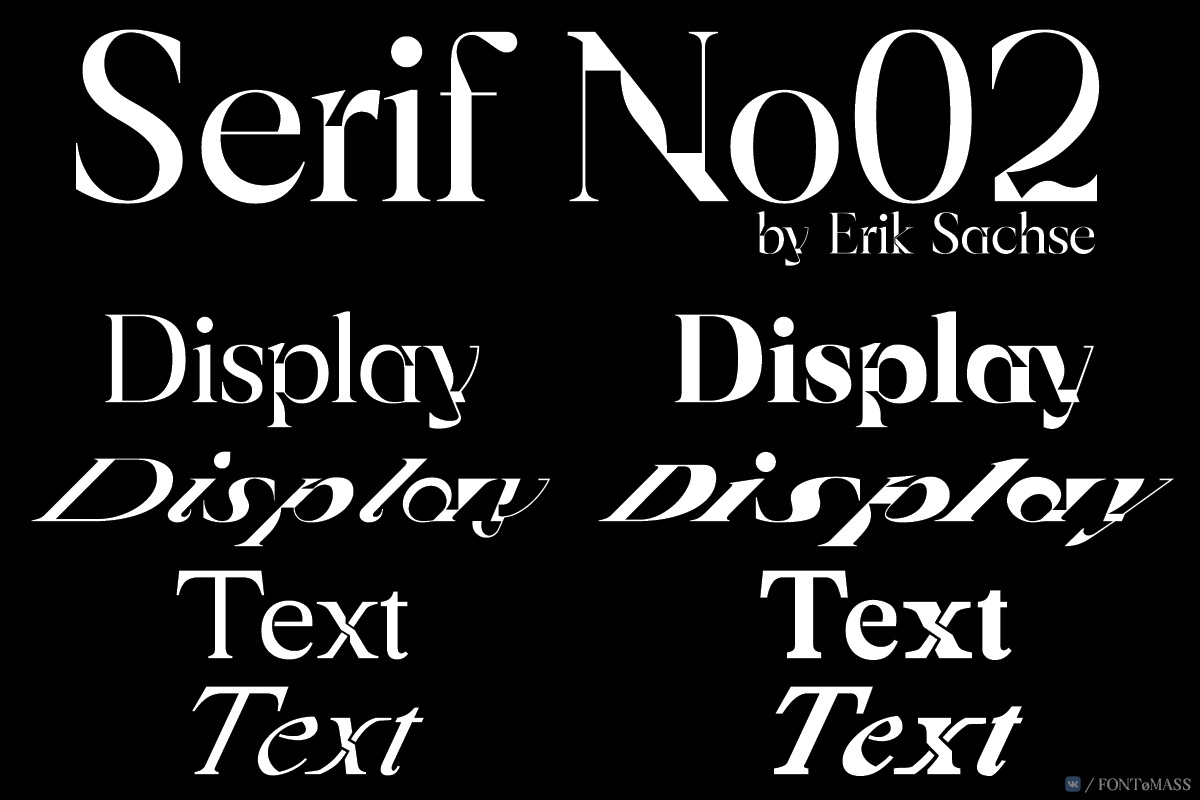
Serif No02 Font
Serif No02 Font is perfect for professional editorial layouts, traditional book publishing, academic documentation, corporate communications, legal firm identities, financial institution branding, formal stationery design, and authoritative advertising materials. This distinguished typeface works exceptionally well in both digital applications and print media where classical elegance and professional credibility are fundamental design requirements.
What makes Serif No02 Font so exciting is its refined interpretation of timeless serif tradition through carefully balanced letterforms that embody the perfect synthesis of classical typography and contemporary functionality. The font features elegant characters with traditional proportions, sophisticated serifs, and professional spacing that creates an atmosphere of established authority and intellectual credibility. Its distinguished personality and classical heritage make it ideal for brands seeking to communicate reliability, academic excellence, and professional competence while appealing to audiences who value traditional craftsmanship and scholarly precision.
The Serif No02 Font family includes comprehensive weight variations from light to bold, along with matching italic styles and traditional alternates. Each style maintains the typeface's classical character while offering extensive multilingual support, traditional numerals, scholarly punctuation marks, and special characters designed to enhance professional communications and academic branding efforts across international educational and business markets.
This remarkable typeface represents the perfect evolution of serif typography optimized for contemporary professional applications while preserving timeless elegance. Whether you're developing law firm identities, creating academic publications, or designing corporate documentation, Serif No02 Font Free Download delivers the established credibility and versatility needed for authoritative communications. The font's scholarly aesthetic makes it particularly effective for educational institutions, legal practices, financial services, and organizations emphasizing tradition, reliability, and intellectual authority.
The meticulously crafted classical proportions and optimized readability in Serif No02 Font ensure exceptional performance while maintaining its distinctive traditional character. Its professional versatility allows seamless application from detailed academic texts to impressive corporate headlines, making it an invaluable tool for designers creating authoritative communications that establish immediate credibility with audiences seeking expertise, tradition, and scholarly excellence.